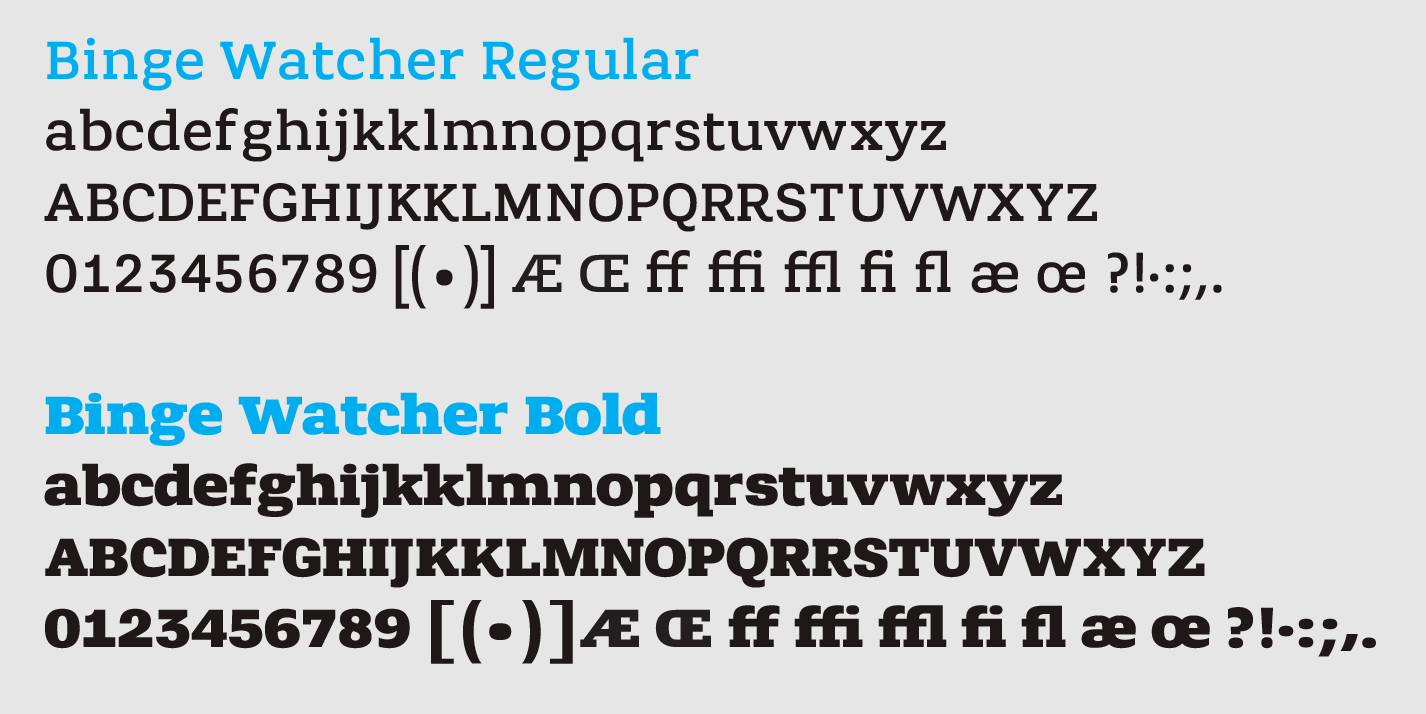
Sean Dougherty
Designer and art director who was active in New York City and Los Angeles from 2000 until today. At TypeParis 2017, he created Binge Watcher, a low contrast slab serif intended for big, bold messaging |